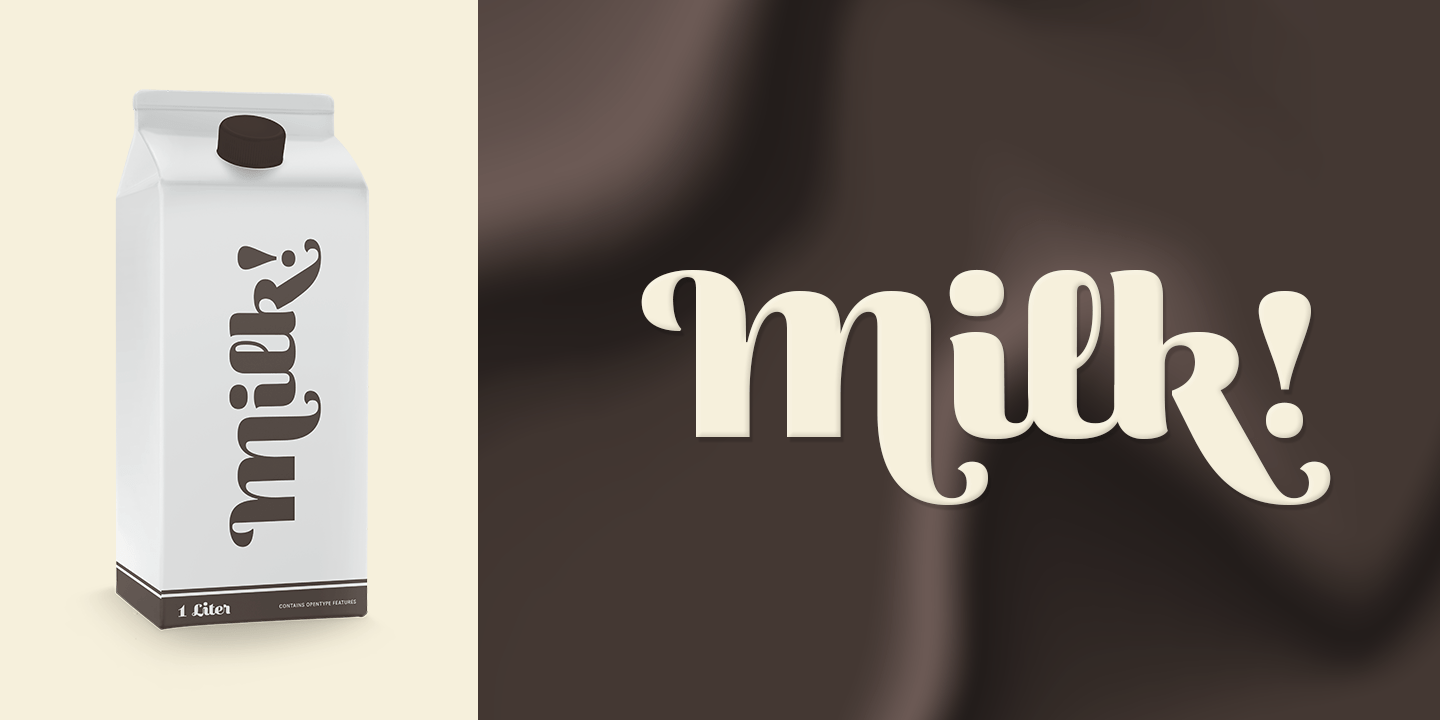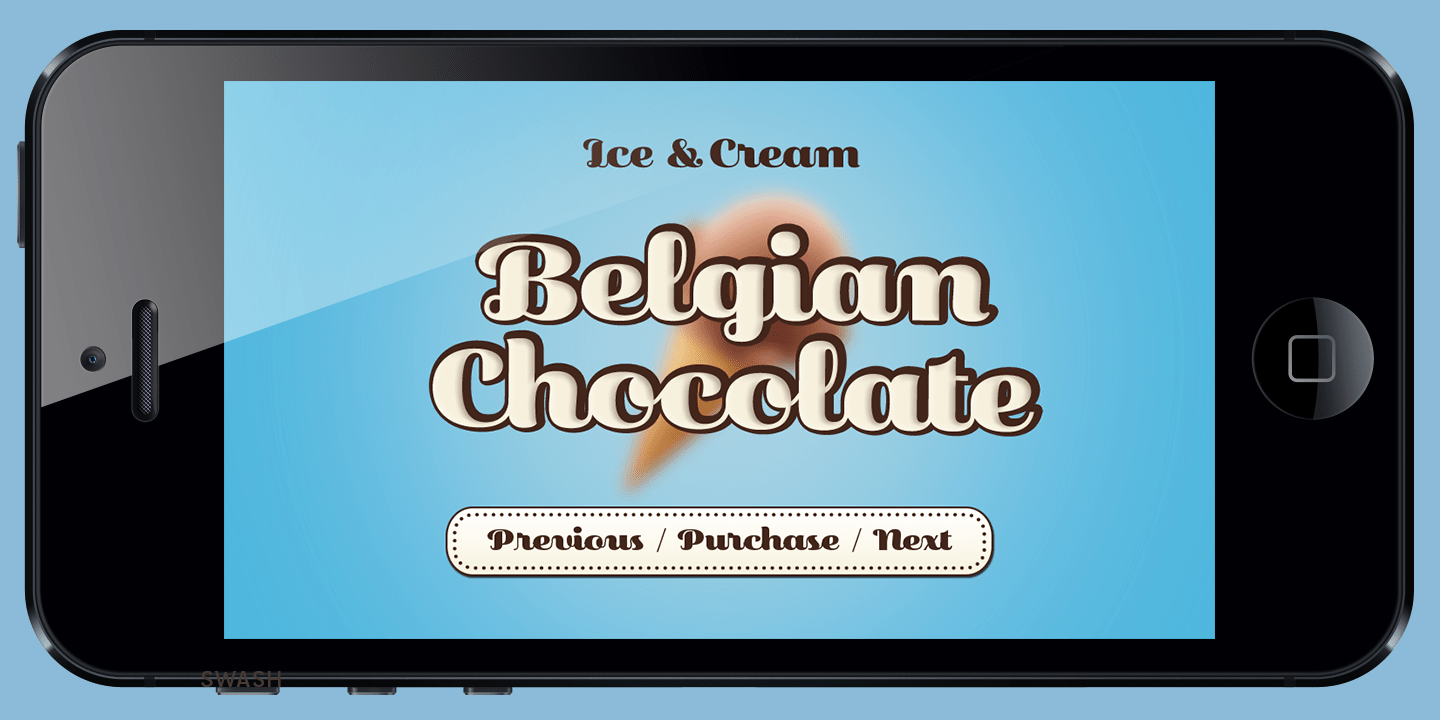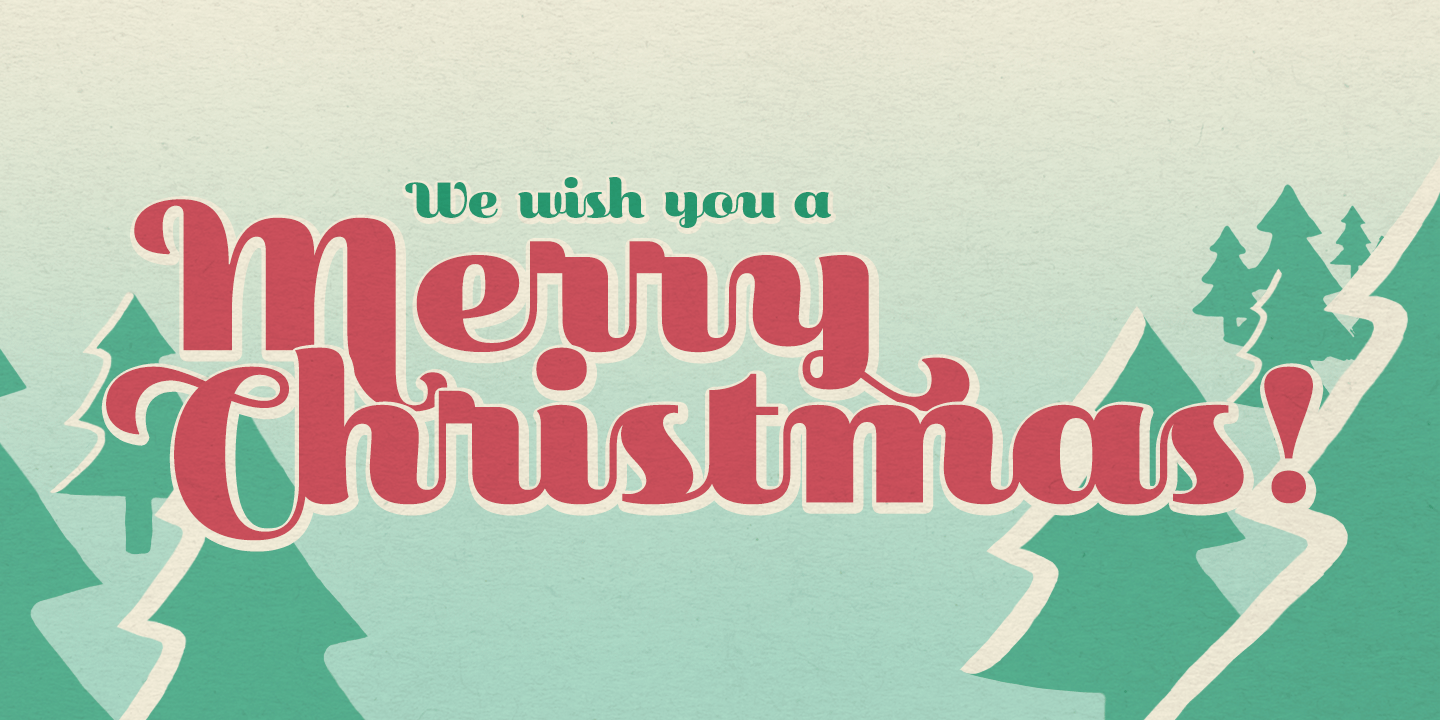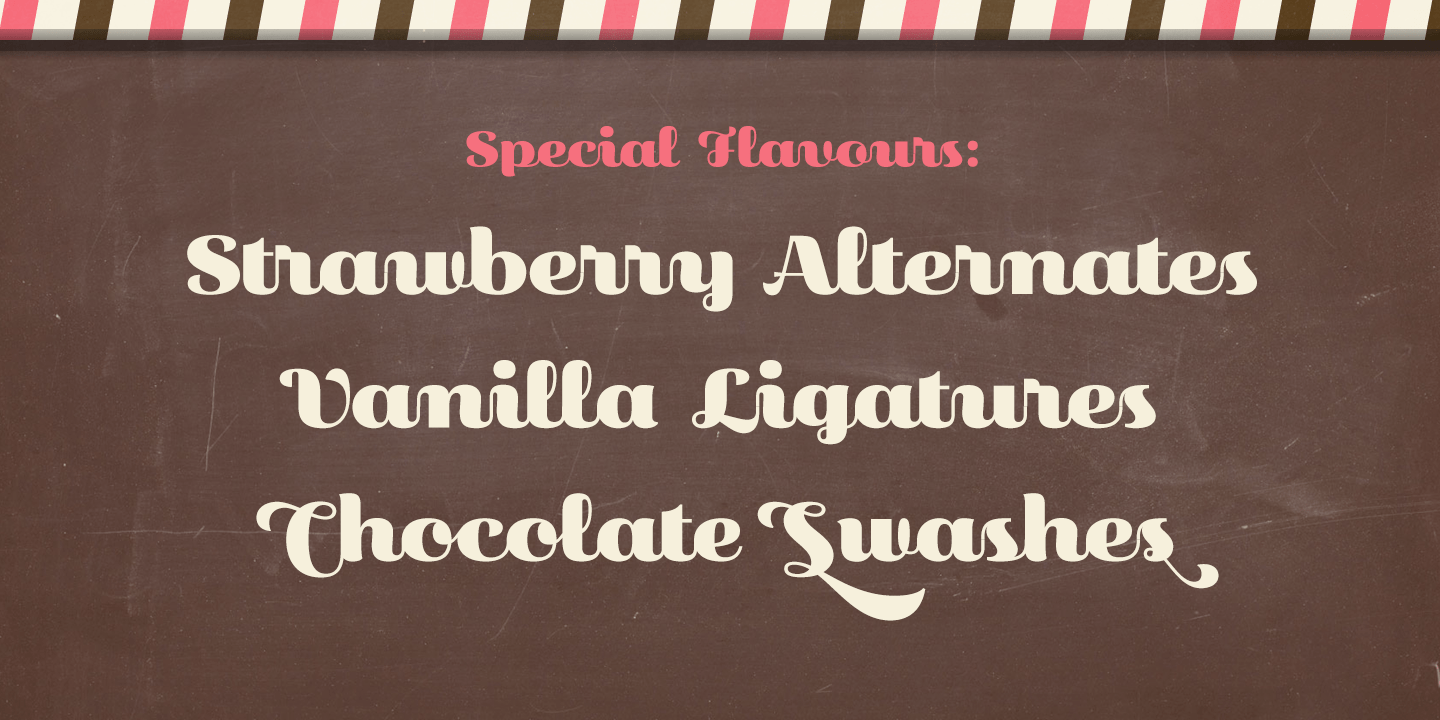
About Primot
Primot is a vertical script heavily influenced by italian ?gelaterias?. After releasing 3 sans-serifs, we were looking for a fun learning opportunity. We started playing with brush lettering and looking into vintage scripts from different eras. Some cool…